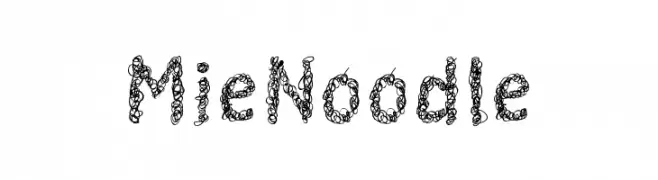
An organic, vine-like font with intricate, thorny details.
A chaotic, aggressive font with jagged, vine-like characters.
A chaotic, textured font with jagged strokes, ideal for eerie or mysterious themes.
A dramatic, thorny font with a chaotic and edgy style.
A chaotic, vine-like decorative font with intense detailing.
A whimsical, hand-drawn font with intricate loops and swirls.
A chaotic, vine-like decorative font with jagged, intricate strokes.